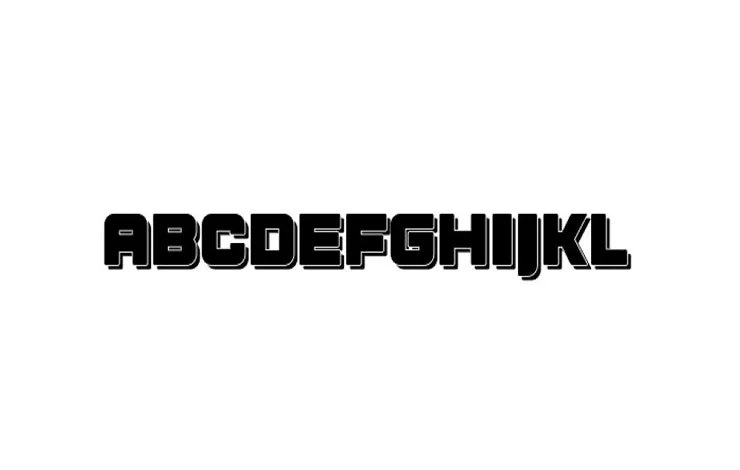
Apnea Base Font is a versatile typeface that can be layered to create a wide range of design possibilities. With its clean and modern appearance, it is a popular choice for both digital and print media.
It was designed by Michael Wallner and published by The Type Fetish. Apnea contains 50 styles and family package options.
The font family includes a variety of styles, from thin and elegant to bold and impactful, making it suitable for a range of applications.
Whether you need a delicate touch for a wedding invitation or a strong presence for a billboard, Apnea Base Font has you covered.
The layering feature adds a new dimension to your designs, allowing you to combine different weights and create unique effects.
This typeface is specially designed for headlines. With this remarkable font, you can create covers, posters, signs, banners, flyers, social media banners, flyers, labels, social media posters, titles, headers, advertisements, youtube thumbnails, titles, headlines, newsletters, product packaging, and more.
Overall, Apnea Base Font is a powerful tool for designers looking to create memorable and engaging designs.
With its broad range of weights and layering capabilities, it is sure to become a go-to choice for many design projects.